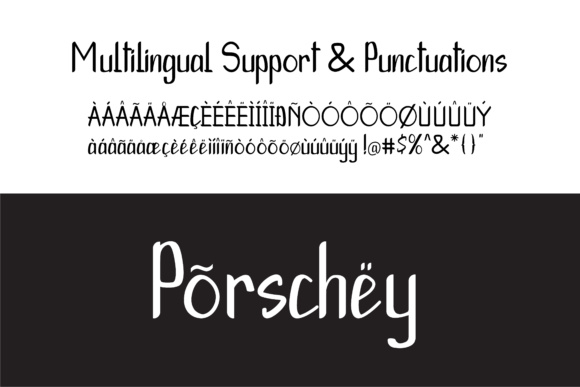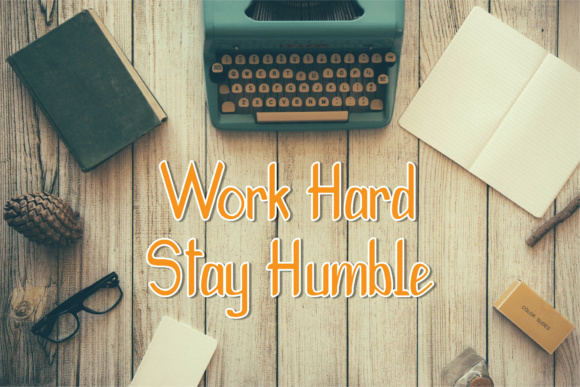
Porschey Font
About Porschey Font
Porschey is a beautiful script font. With it’s modern look, Porschey is great for creating writing styles, magazine designs, business cards, and much more!